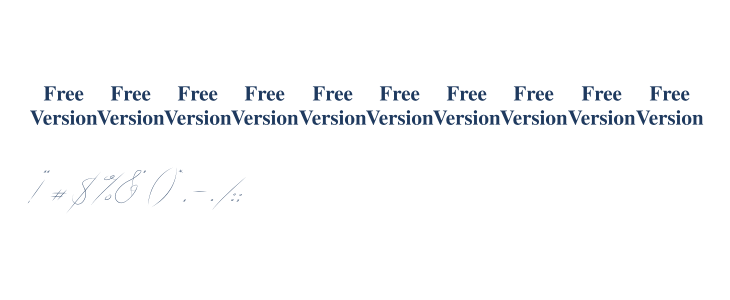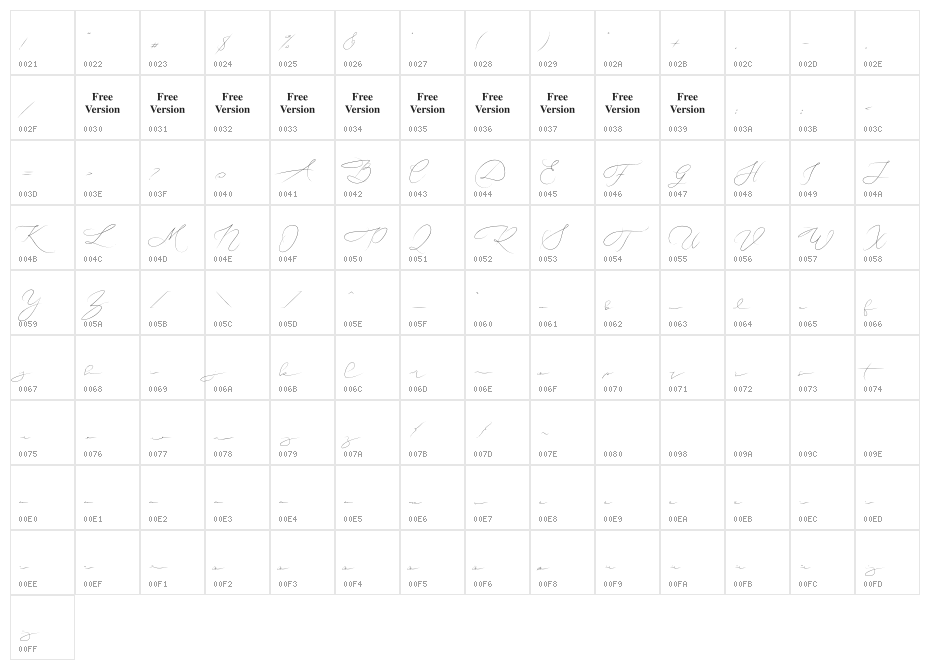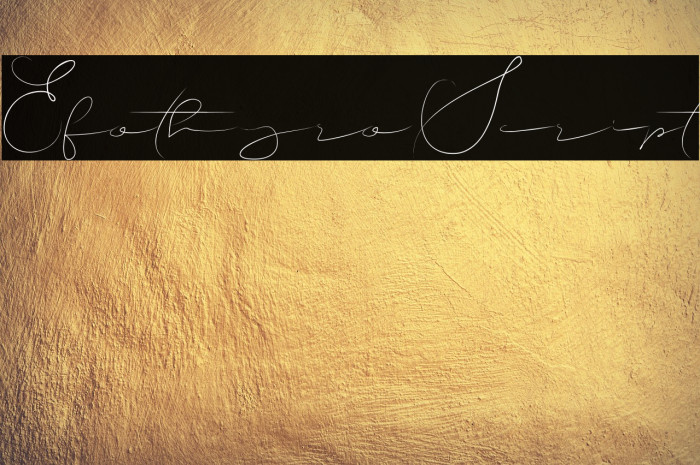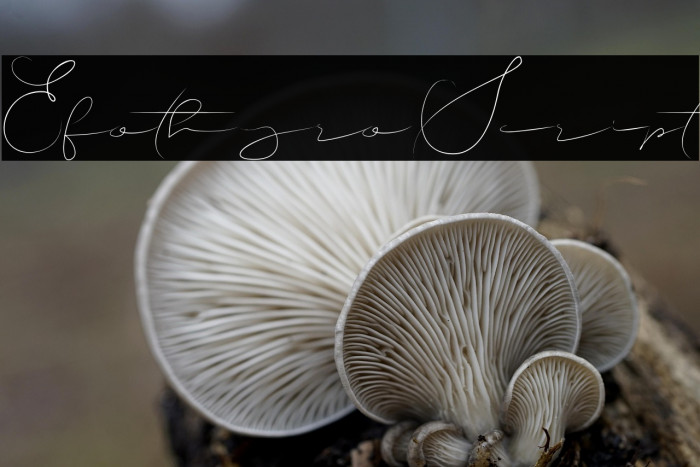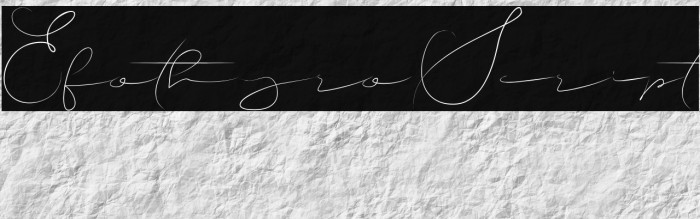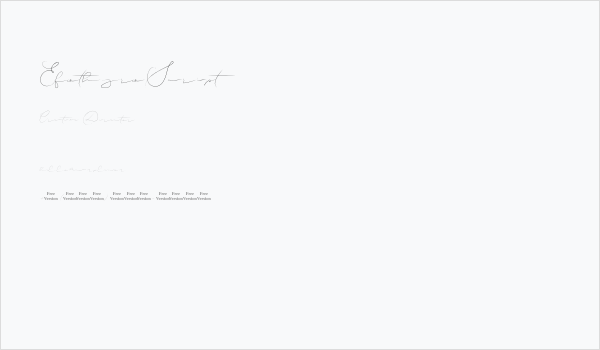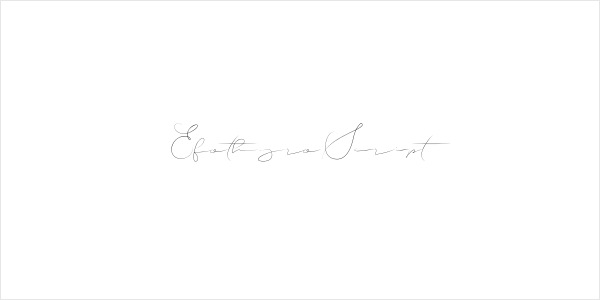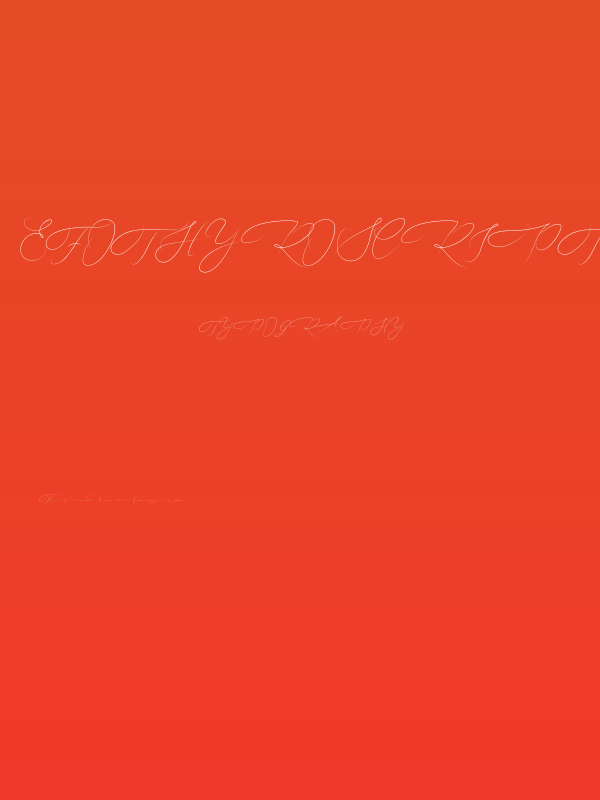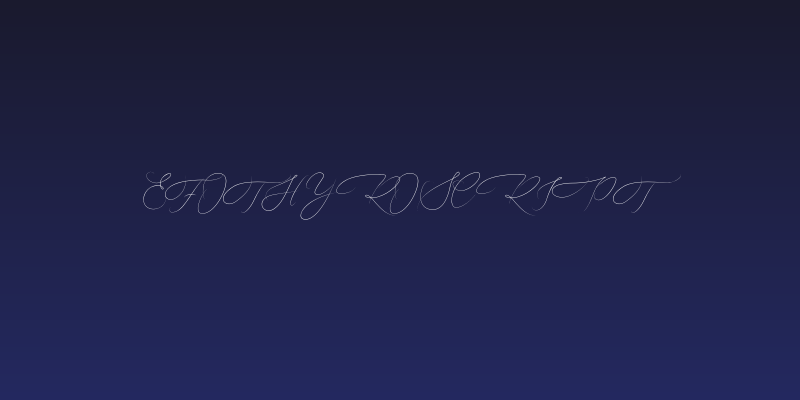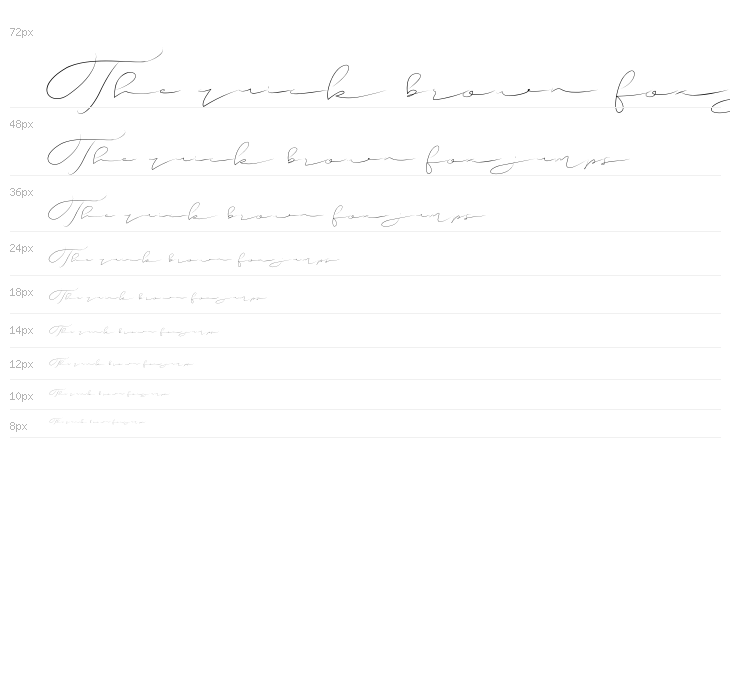
EfothyroScript Font
EfothyroScript Description
This elegant script font features a delicate and flowing design, reminiscent of classic calligraphy. The characters are interconnected with graceful curves and loops, giving it a sophisticated and artistic appearance. The uppercase letters are slightly more ornate, while the lowercase letters maintain a consistent fluidity. The font's thin strokes and high contrast between thick and thin lines add to its refined aesthetic. It includes a full set of uppercase and lowercase letters, numerals, and a variety of special characters, making it versatile for various design needs.
| Overall Style | Classic |
| Use Case | Logos, Invitations, Decorative text |
| Proposed Projects | Ideal for wedding invitations, elegant branding, personal stationery, and artistic projects. |